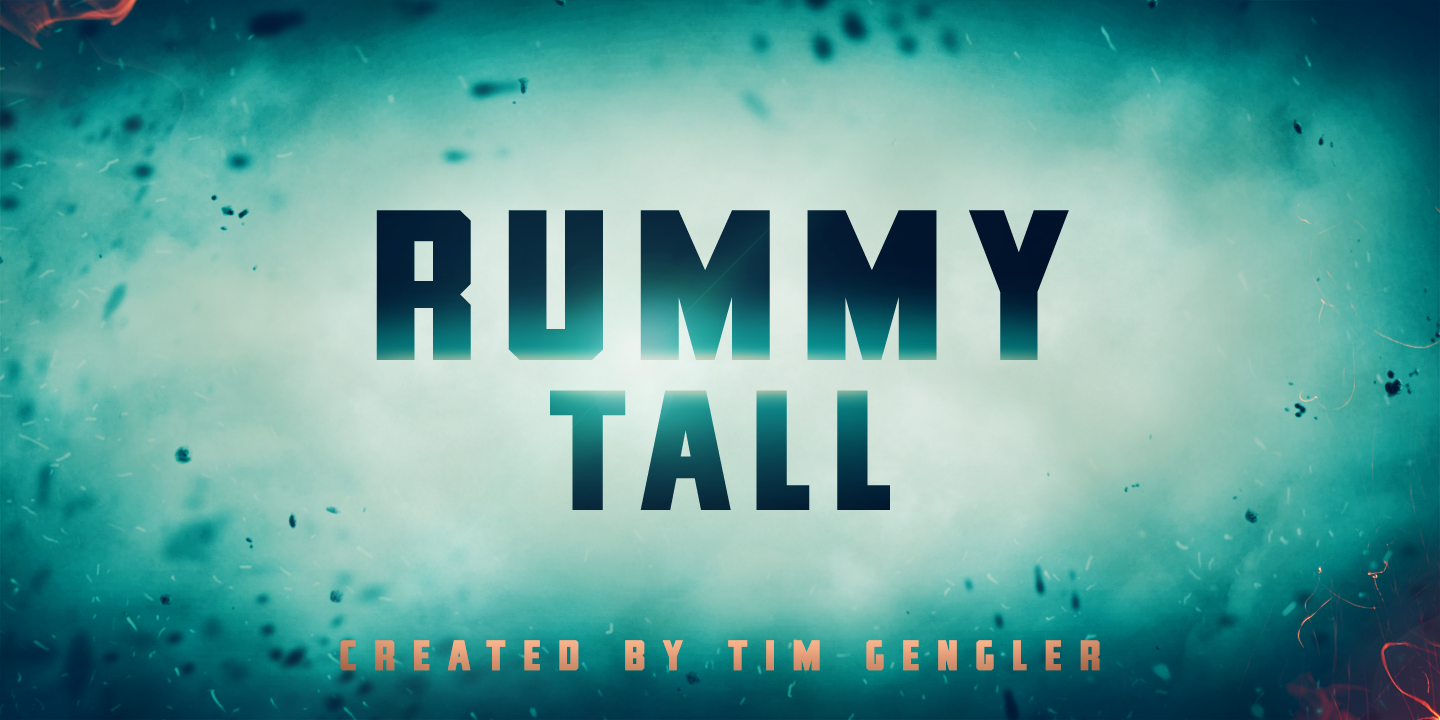
Rummy Tall Font is ideal for gaming industry branding, casino entertainment graphics, card game tournaments, playful gambling marketing, recreational gaming venues, board game packaging, and strategic competition campaigns.
What makes Rummy Tall Font exciting is its playful gaming spirit and tall strategic elegance, featuring elongated letterforms that capture the essence of card game sophistication while delivering entertaining visual appeal and gaming authenticity.
The Rummy Tall Font family includes Light, Regular, Medium, Bold, and Heavy weights, plus elongated variants and gaming alternates that enhance the font's playful character and strategic possibilities.
Rummy Tall Font Free Download embodies the strategic excitement of card games and the entertaining spirit of recreational gaming through playful typography design. This engaging typeface captures the intellectual challenge of strategic card play and the social enjoyment of gaming entertainment, creating a fun visual language that speaks to game enthusiasts and recreational players who value strategic thinking, social gaming, and the entertaining appeal of card game culture. The font's tall character and gaming appearance make it perfect for gaming venues, card game publishers, and entertainment organizations that want to communicate fun, strategy, and the engaging appeal of recreational gaming experiences.
Gaming companies and entertainment venues consistently choose Rummy Tall Font for projects that require authentic gaming credibility and entertaining visual appeal. The typeface's strategic construction and playful personality make it exceptionally effective for card game manufacturers, gaming cafés, and recreational entertainment venues where strategic fun and gaming enjoyment are paramount. Each character has been designed with gaming precision to ensure maximum entertainment across all gaming applications and recreational environments.
The gaming advantages of Rummy Tall Font extend beyond its playful appeal to include practical functionality for diverse entertainment applications. The font maintains excellent readability in gaming settings while delivering the distinctive character that creates memorable gaming experiences and connects with players seeking authentic recreational entertainment. Its comprehensive character set includes gaming symbols and strategic elements that make it particularly suitable for game documentation and entertainment communication.
Card game publishers, gaming venues, and recreational entertainment companies frequently incorporate Rummy Tall Font into their brand identity systems because of its ability to instantly convey gaming authenticity and entertainment sophistication. The typeface's playful aesthetic helps establish credibility in competitive gaming markets while appealing to players who value strategic thinking, social gaming, and the entertaining experiences that come from authentic card game culture and recreational gaming excellence.